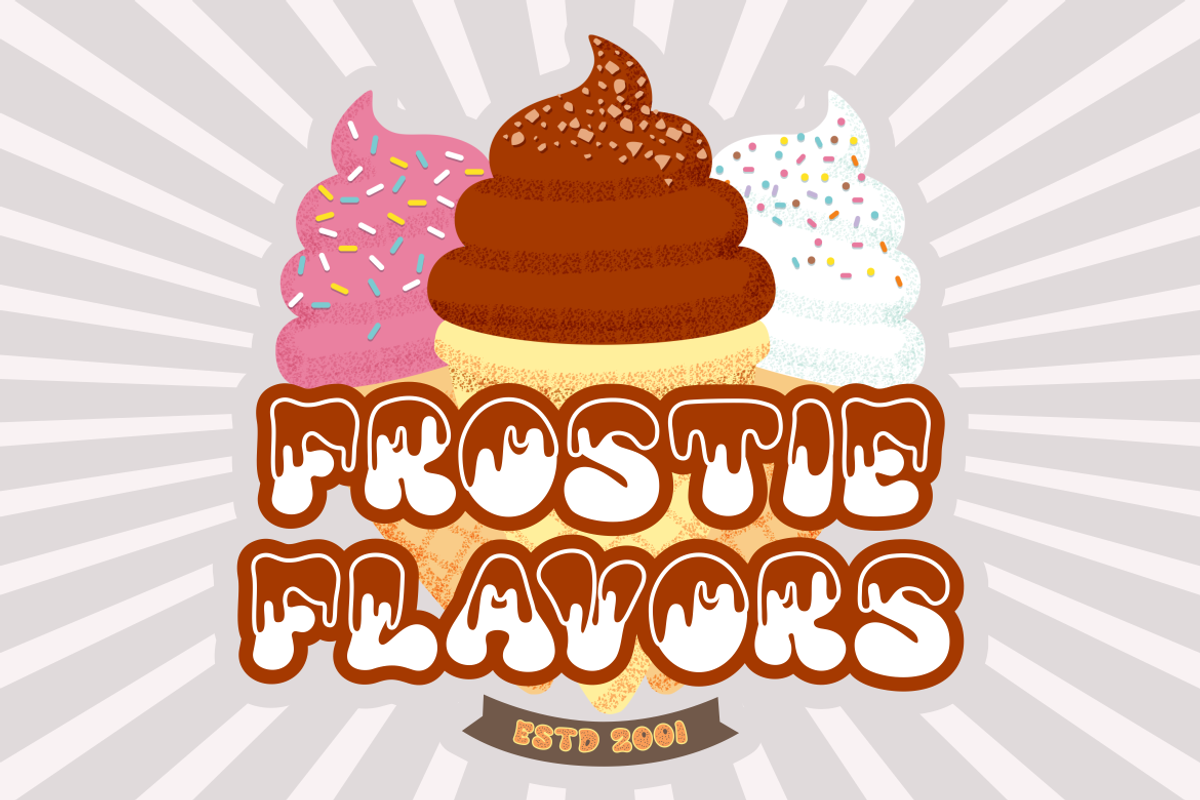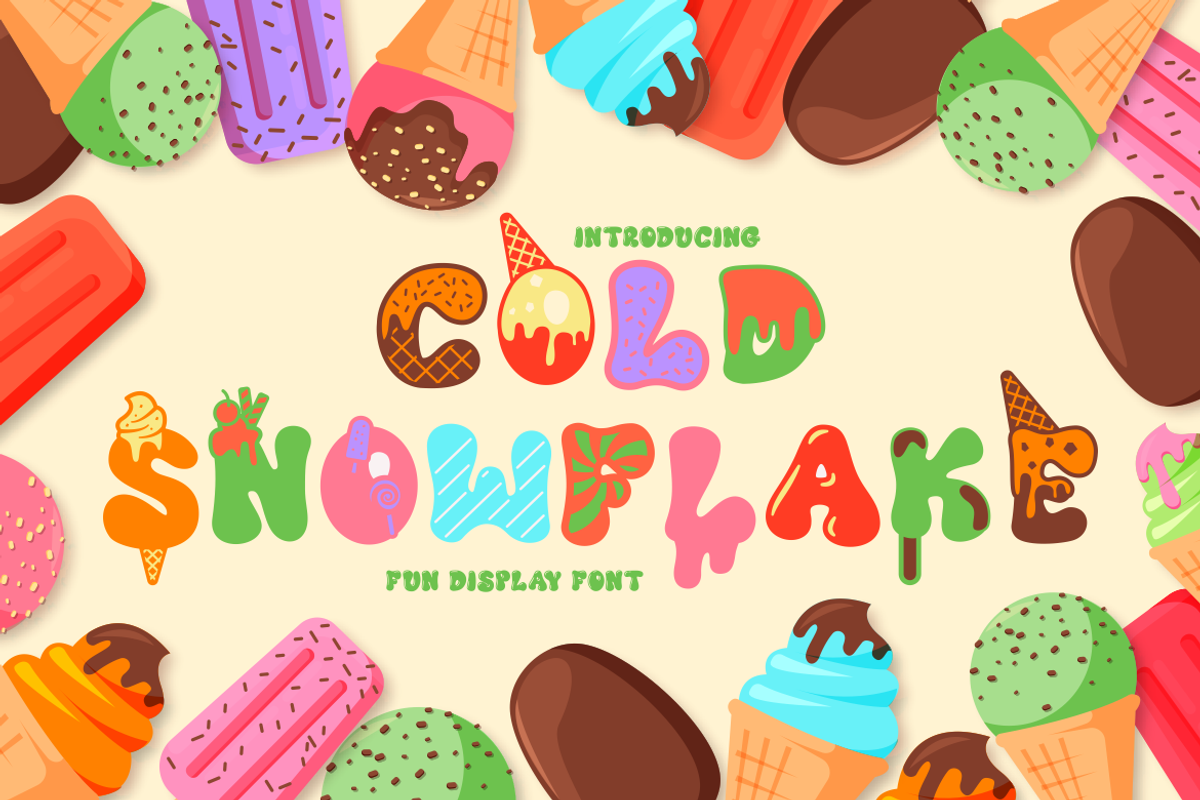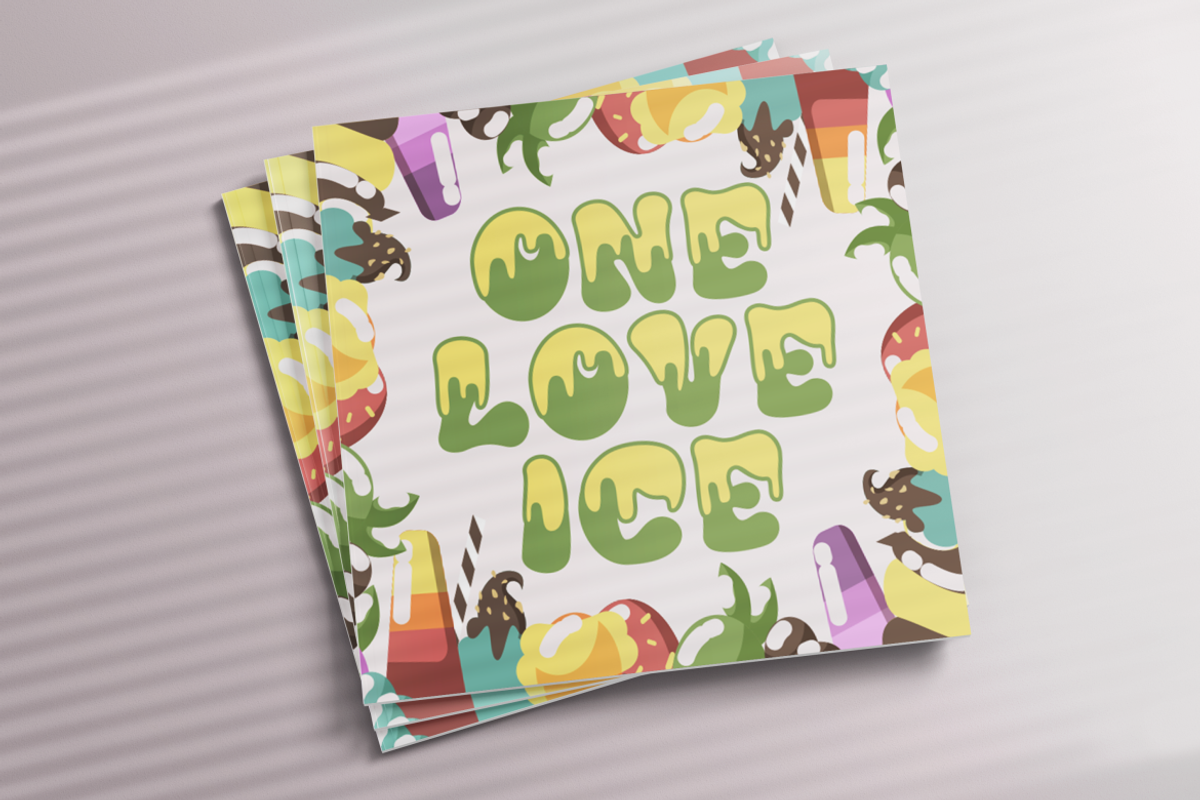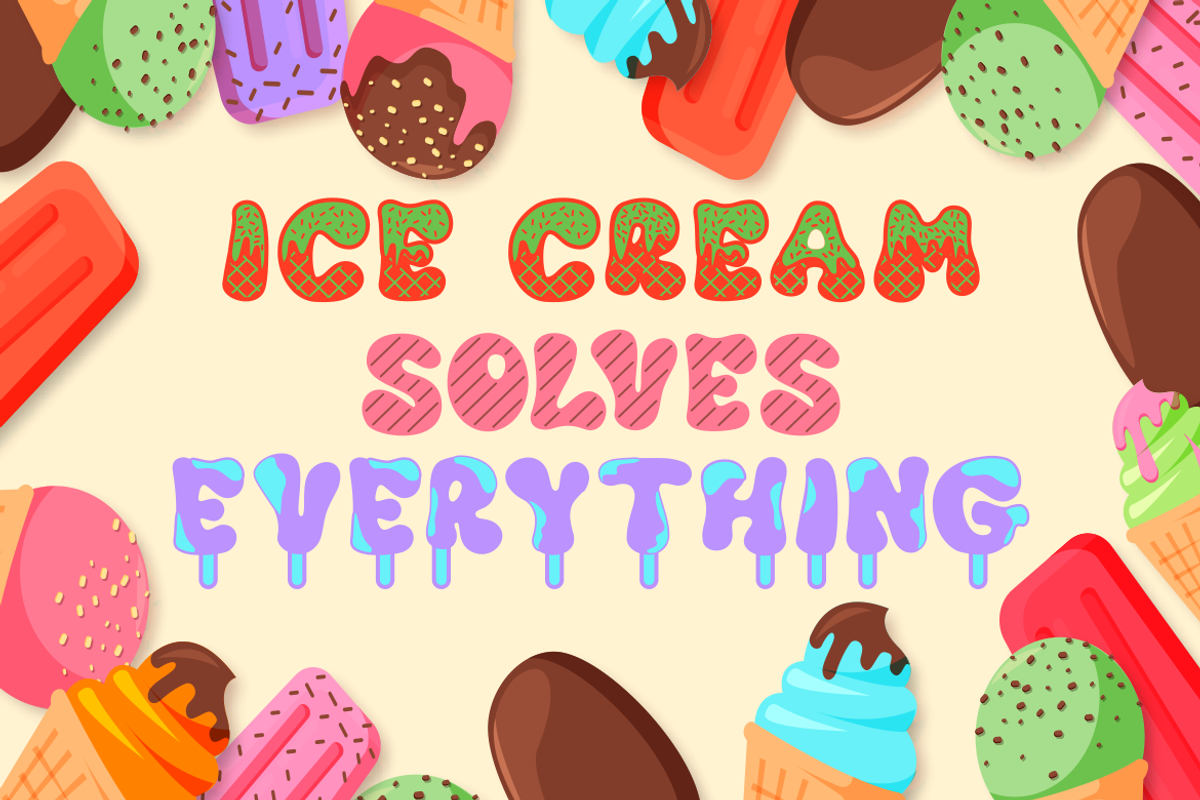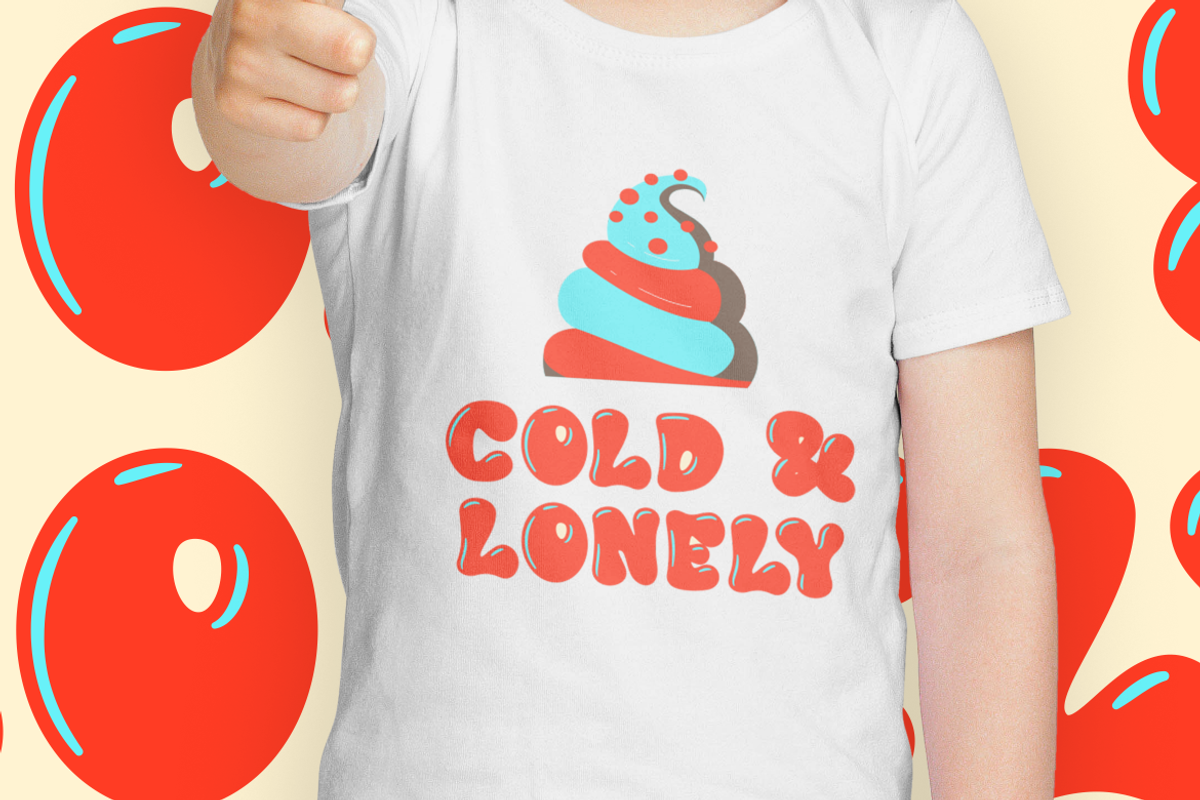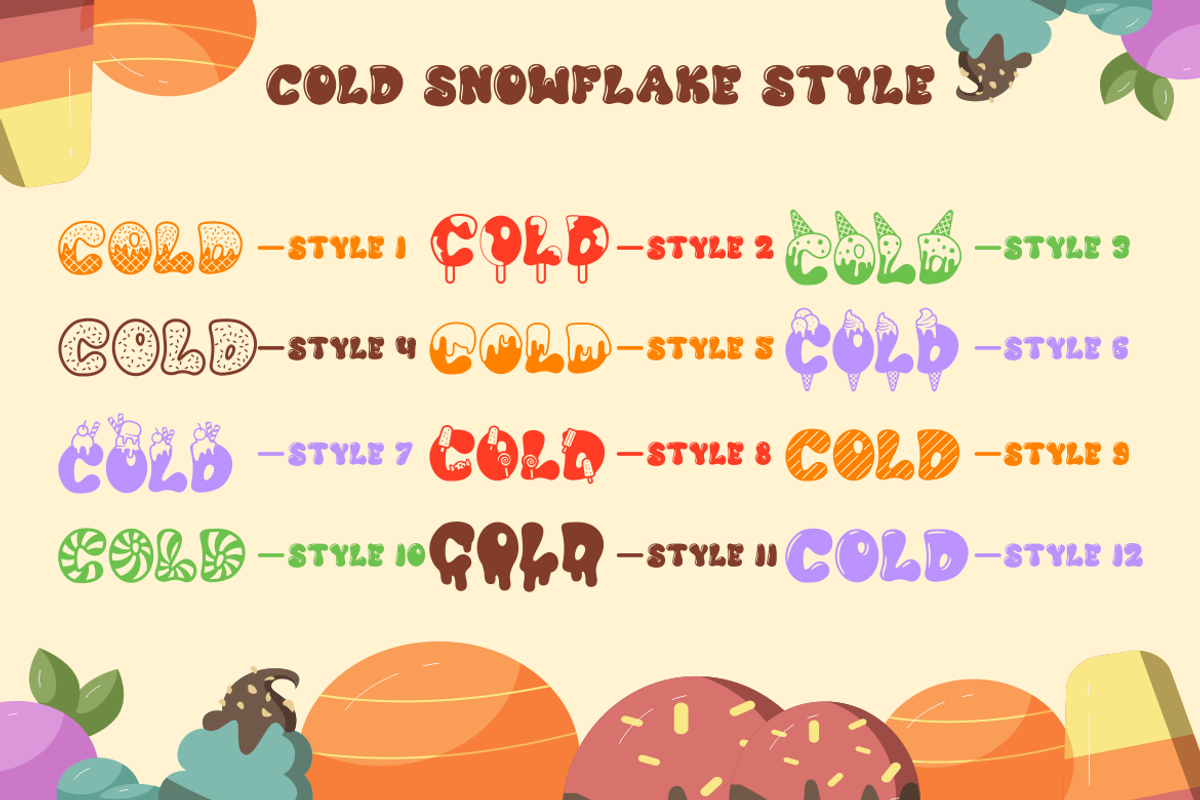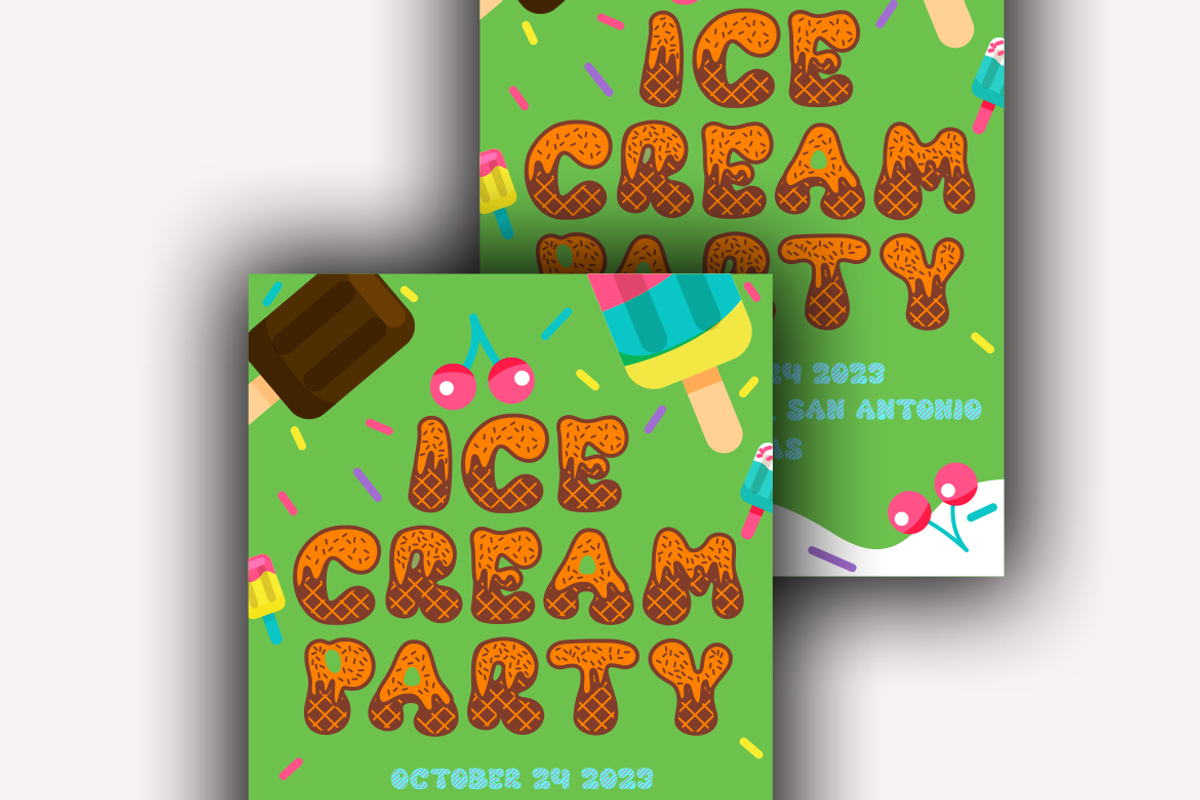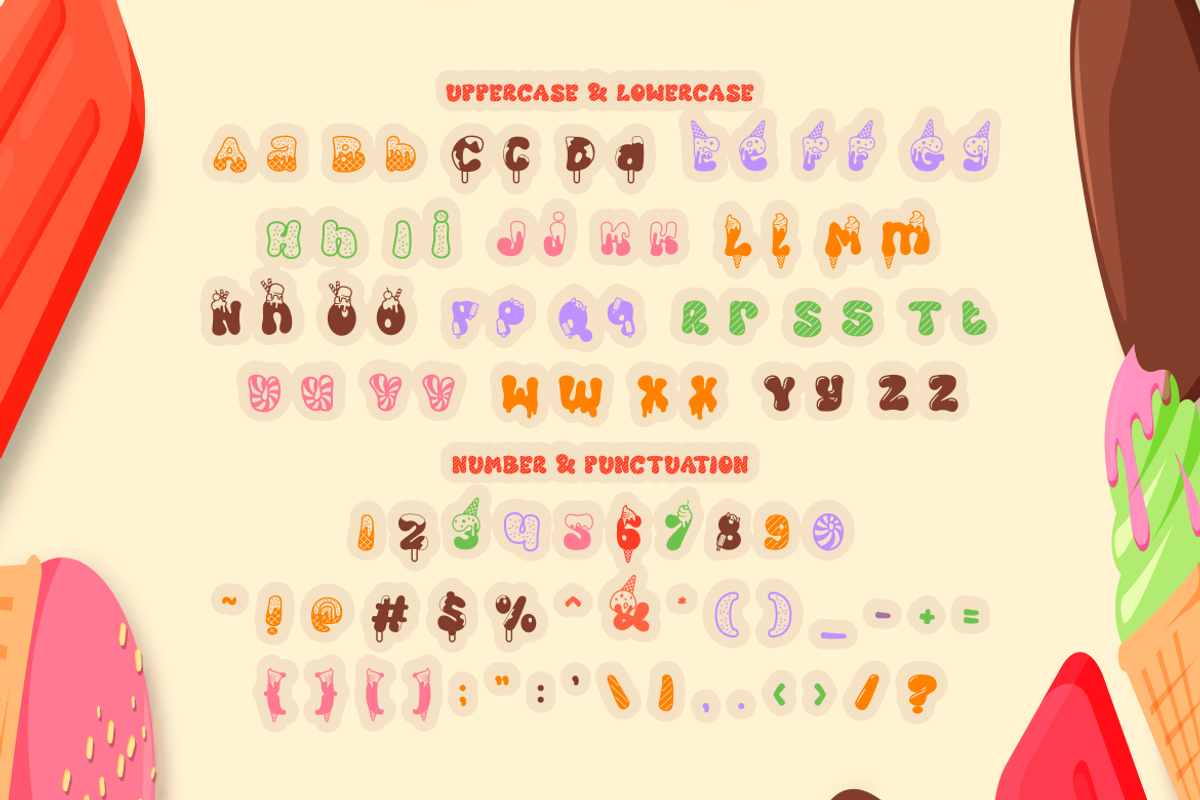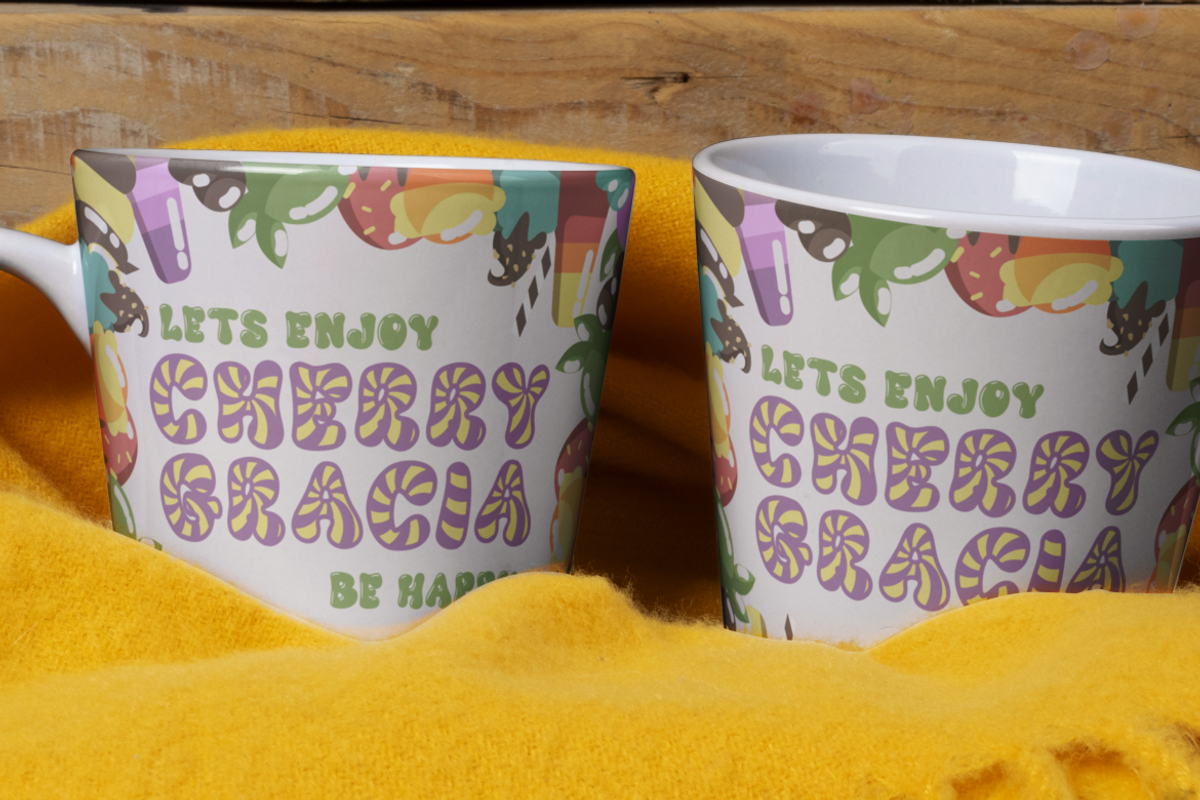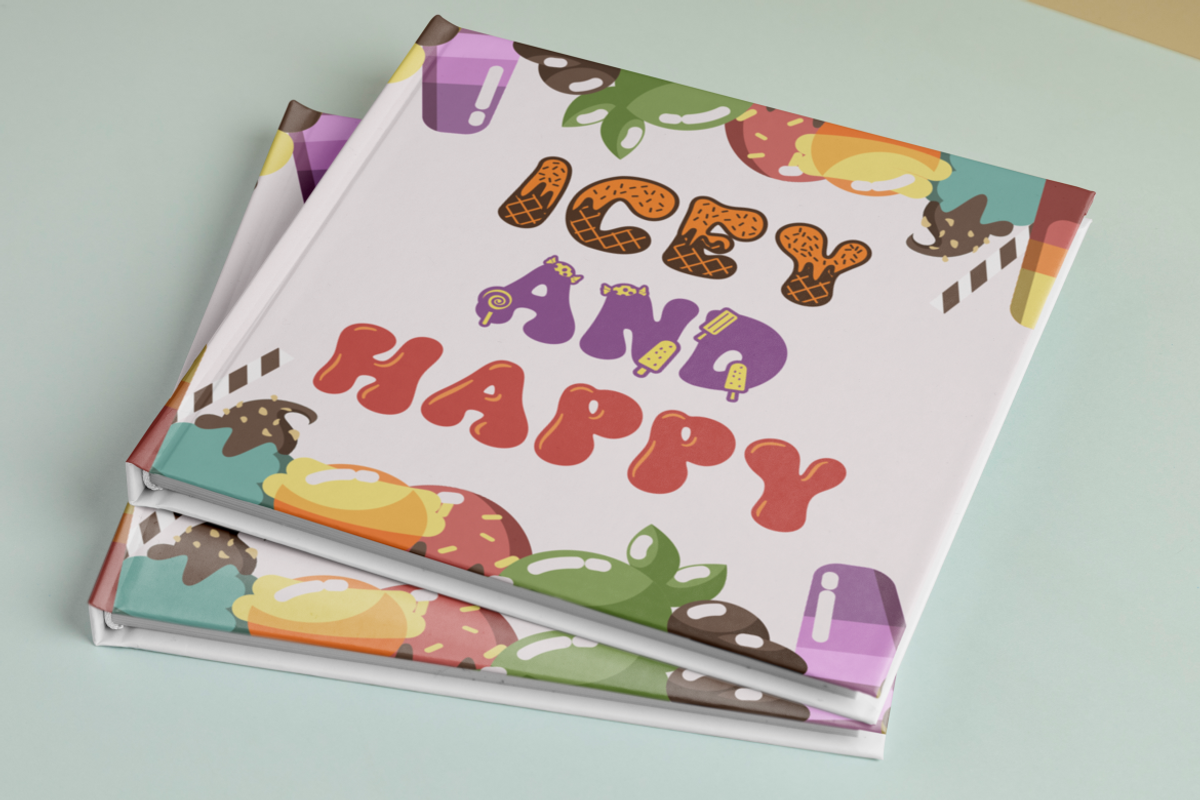
Cold Snowflake - Quirky Ice Cream Fo
Cold Snowflake - Quirky Ice Cream And Candy Theme Font is a delightful typeface designed to capture the essence of ice cream and candy in a playful and fun manner. The font features quirky, bold, and chubby letterforms, mirroring the sweet and indulgent theme it represents. It can be effectively used alone or in combination with its twelve charming variations.
With twelve distinctive variations inspired by ice cream, candy, cones, sprinkles, sticks, melting treats, and chocolate, Cold Snowflake is the perfect choice for children's projects, crafting, and any design that seeks to evoke a sense of fun, playfulness, and a vibrant, colorful aesthetic.
This font suits a wide range of applications, including logos, crafting projects, invitations, packaging, posters, titles, businesses, greeting cards, stickers, children's books, magazines, and any design related to the delightful world of ice cream and candy.
With its sweet and cheerful theme, Cold Snowflake adds a touch of whimsy to your creative work, making it perfect for all things sweet and playful.